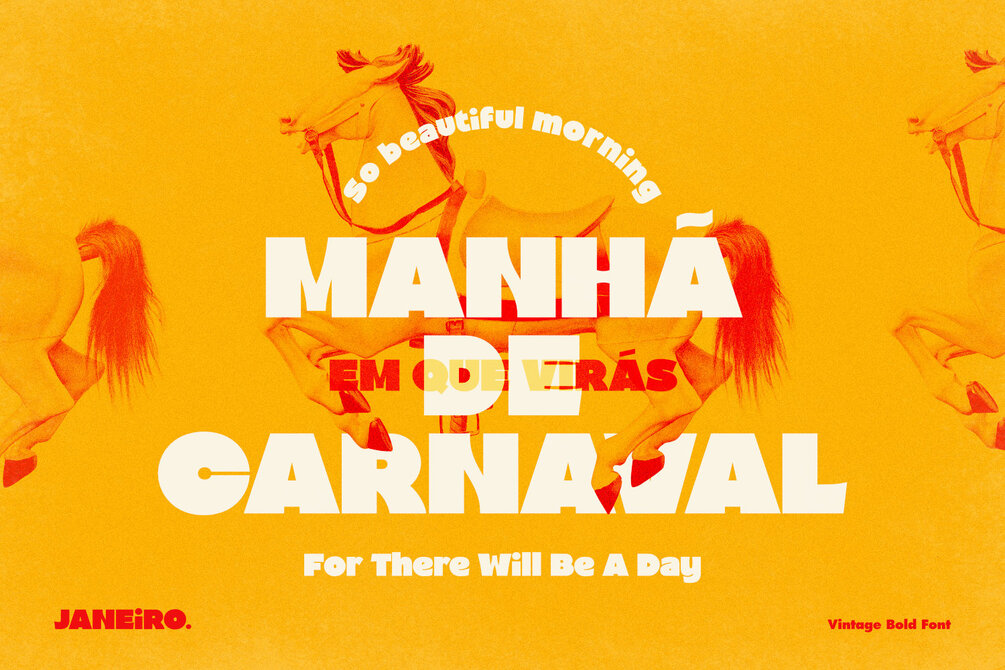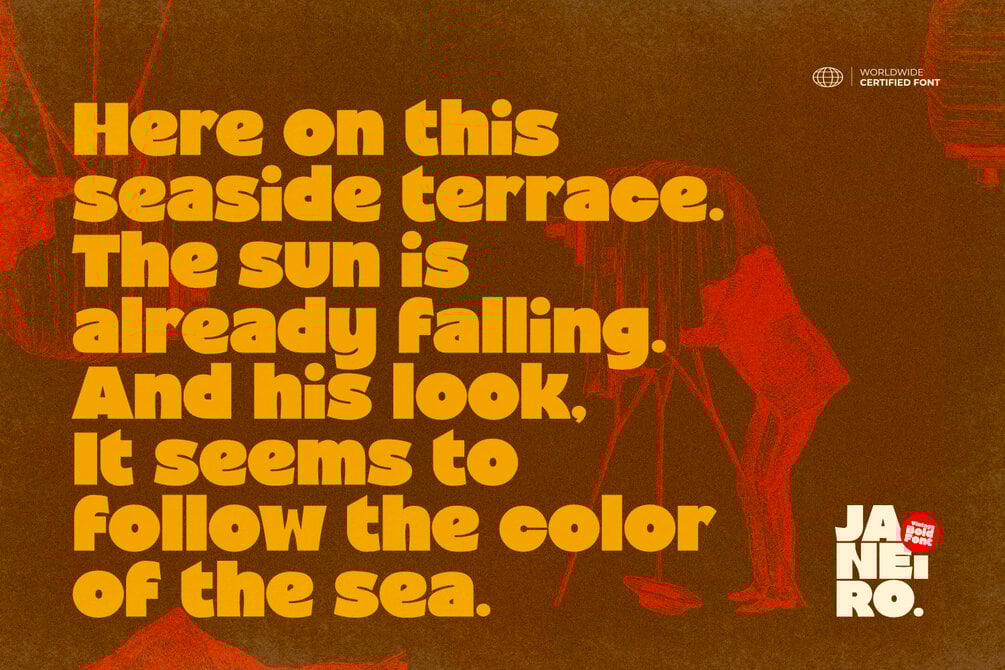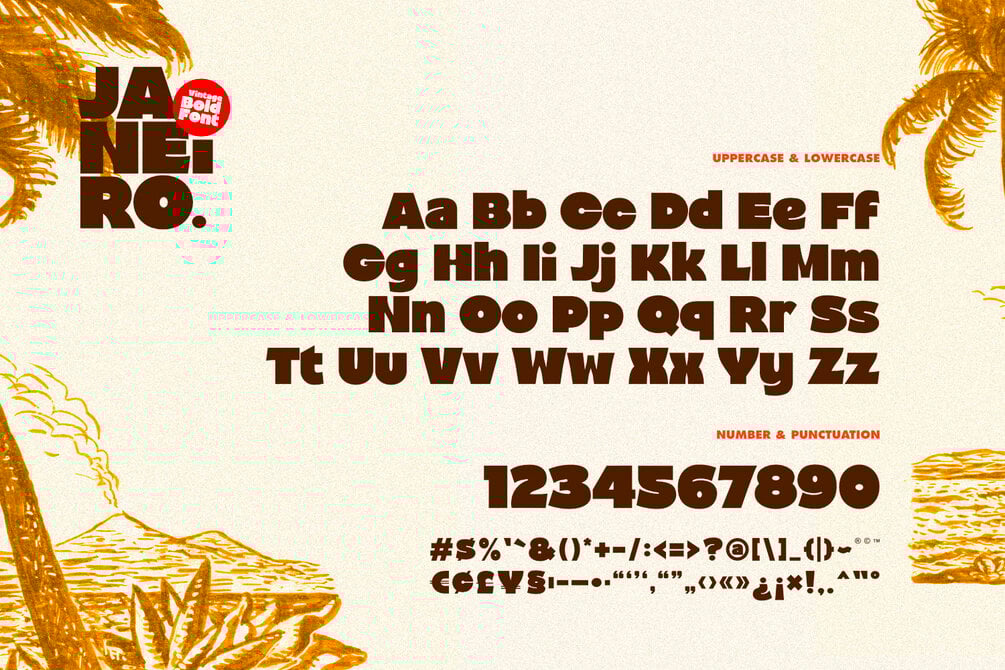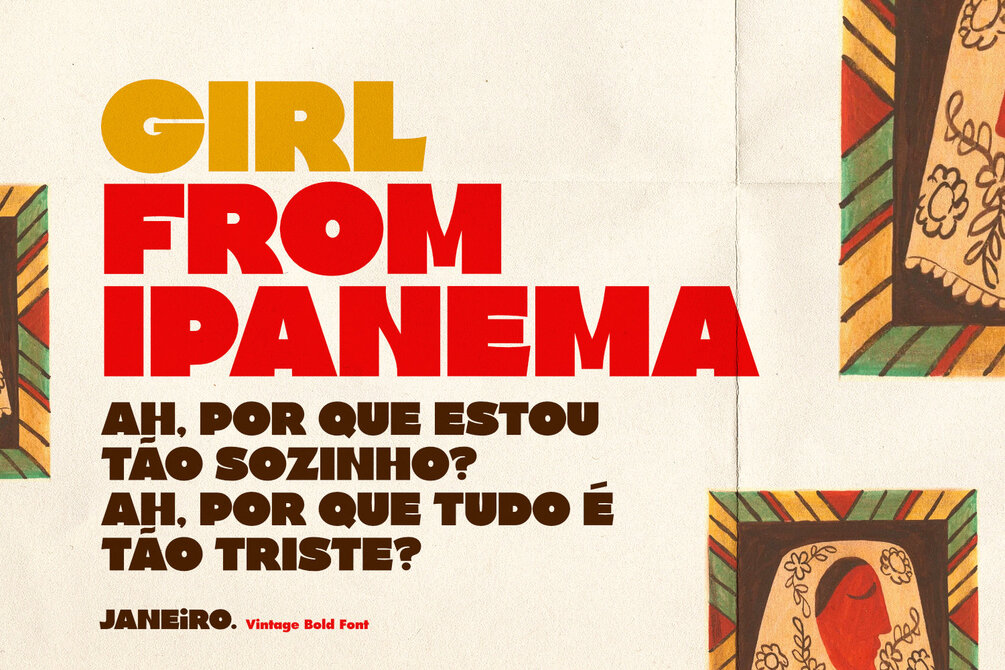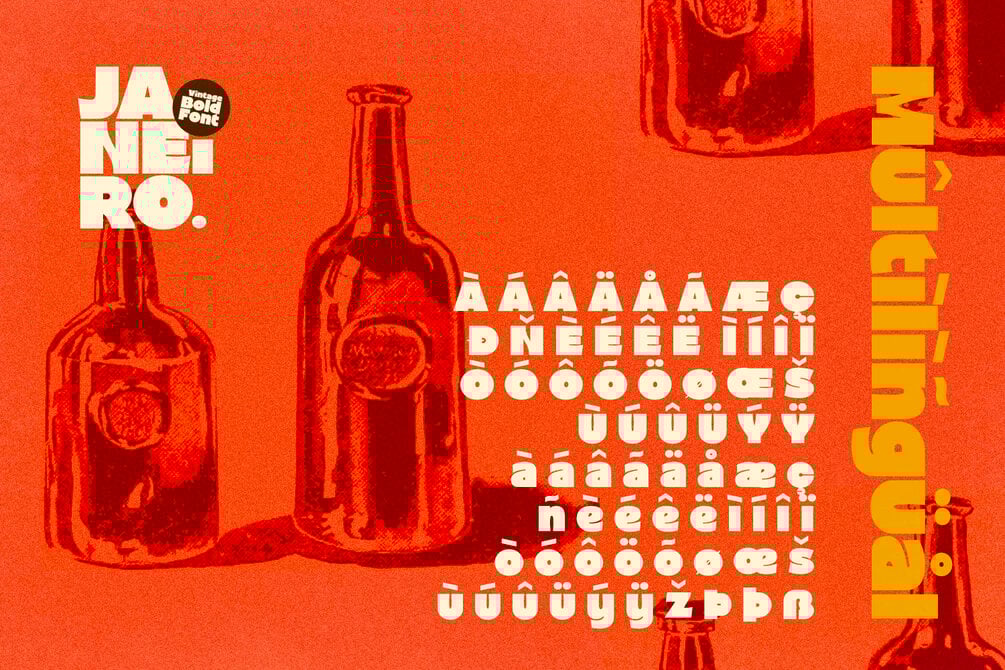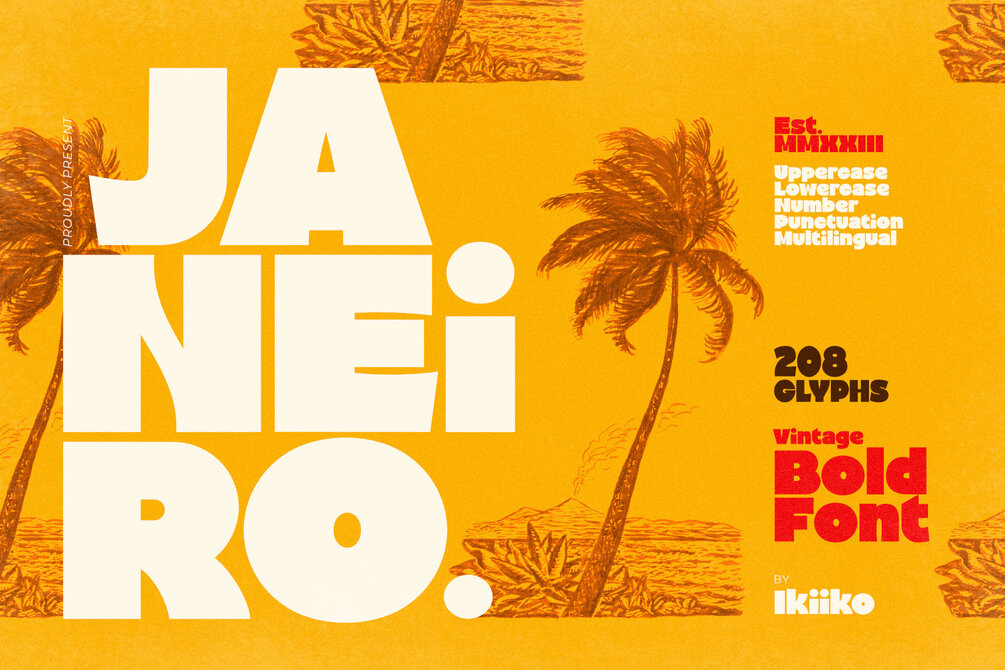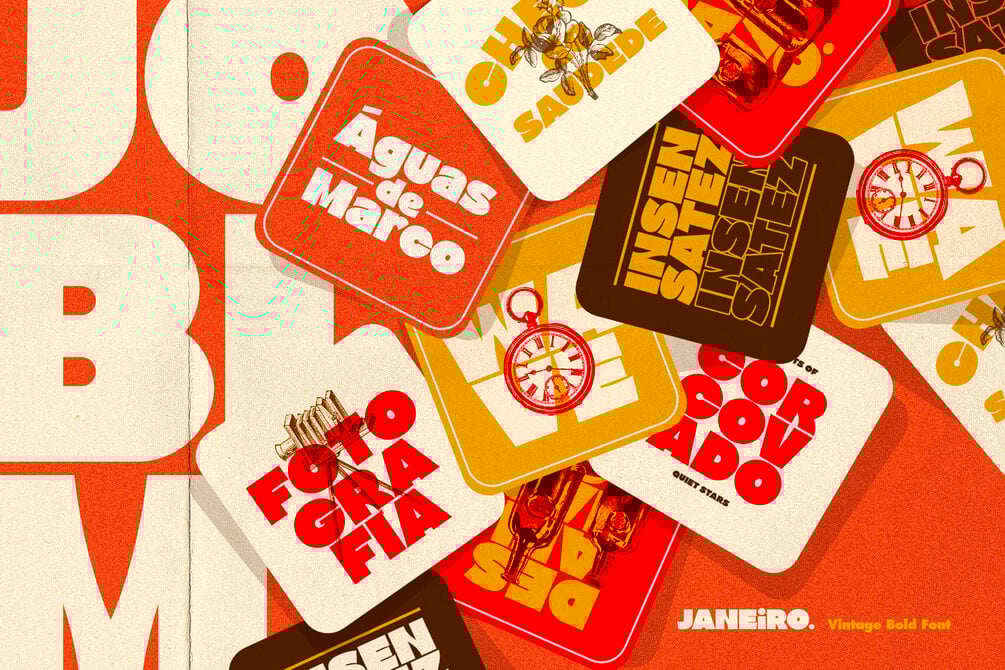
Janeiro - Vintage Bold Font
Proudly present Janeiro - Vintage Bold Font, created by ikiiko.
Janeiro a bold font that personifies masculinity and retro vibes! This font dances in a contemporary setting with a fluidity that evokes the energy of the past.
In a world where conformity sometimes takes center stage, Janeiro boldly challenges convention and invites everyone to join in a colorful and energetic parade. It's more than just a font; it's a typographic carnival that welcomes you to experience the joy of expression and the flow of creativity.
This font is very suitable for making a poster, vintage or retro stuff, fashion brand, magazine layout, food & beverages packaging, quotes, or simply as a stylish text overlay to any background image.
- Uppercase & Lowercase
- Numbers & Punctuation
- Multilingual Support